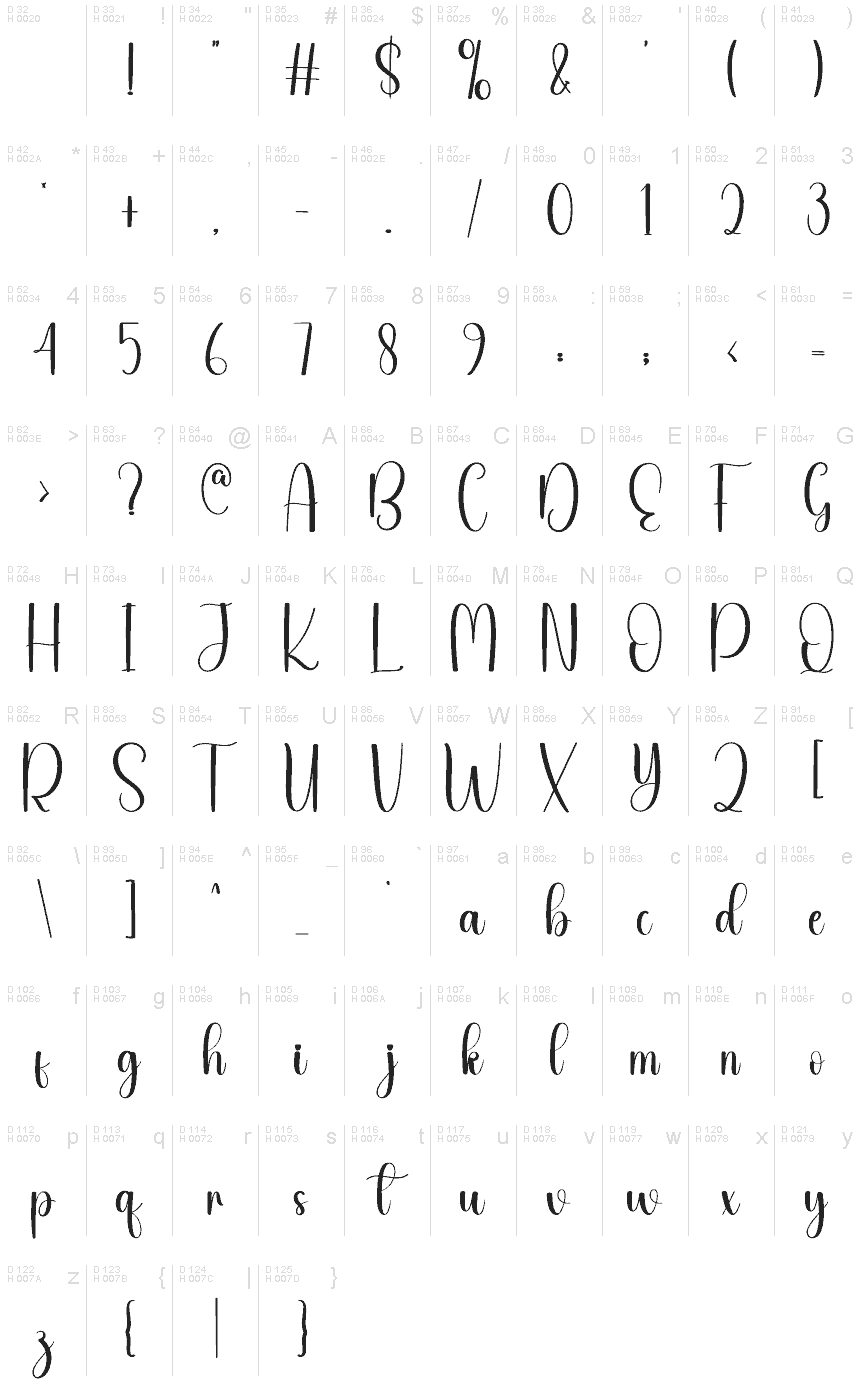
Butter Chiken
Butter Chiken font is Andi Moz’s calligraphy creation that looks elegant, flowing, and quite expressive. It is also noted for its artistic yet contemporary built that can be used in branding applications as well as the design of invitations.